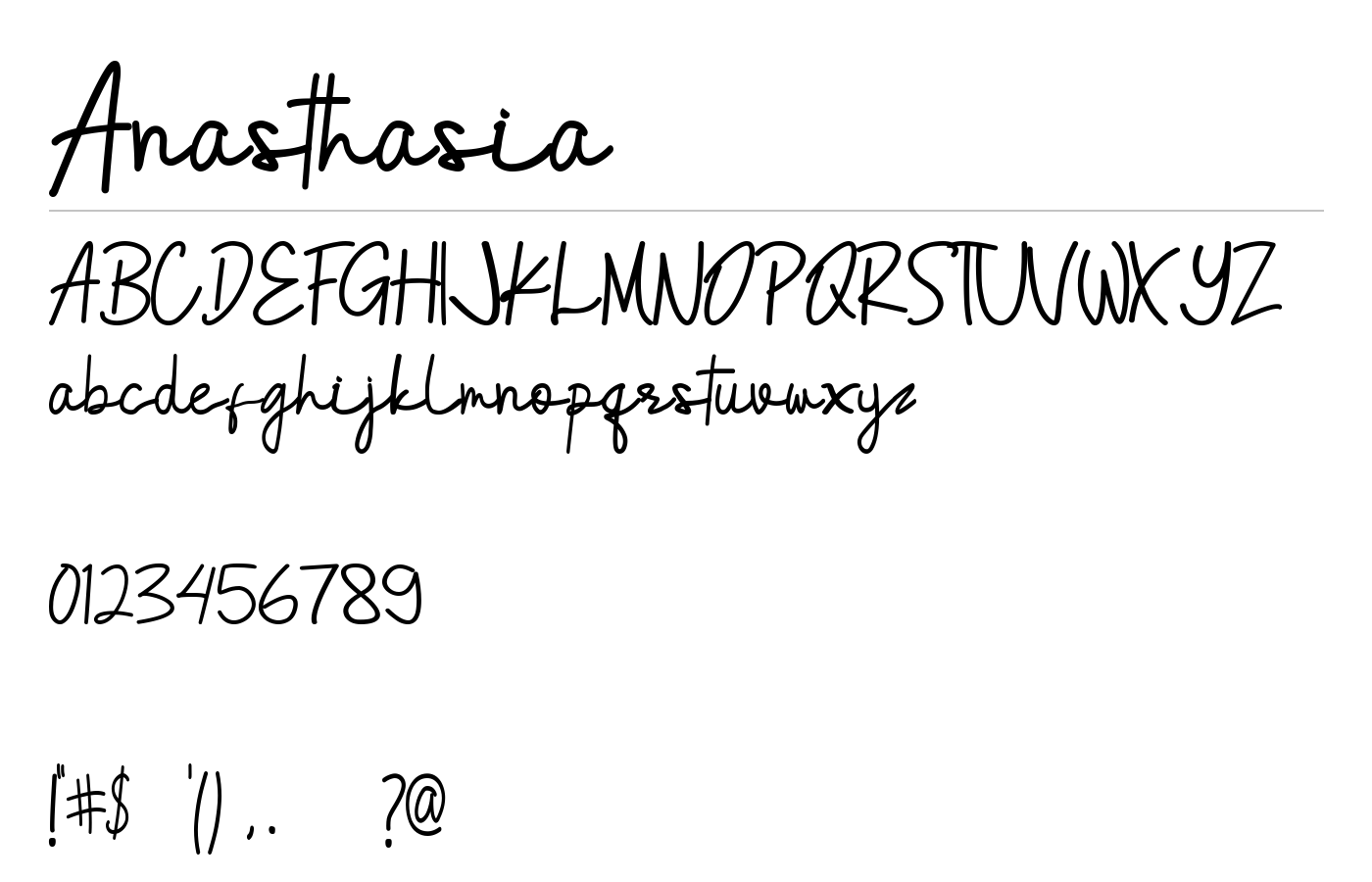
Anasthasia is a slender, casual script font that mimics natural handwriting with its tall, slightly narrow letterforms and smooth, consistent strokes. Its playful and friendly character makes it ideal for informal branding, greeting cards, and personal projects where a warm, approachable feel is desired without sacrificing readability. This font shines in creative headlines and decorative uses, adding a touch of personality and charm.
Anasthasia Font
About Anasthasia Font
| Font family | Anasthasia Font |
| Designer | Papertype Studio Co. |